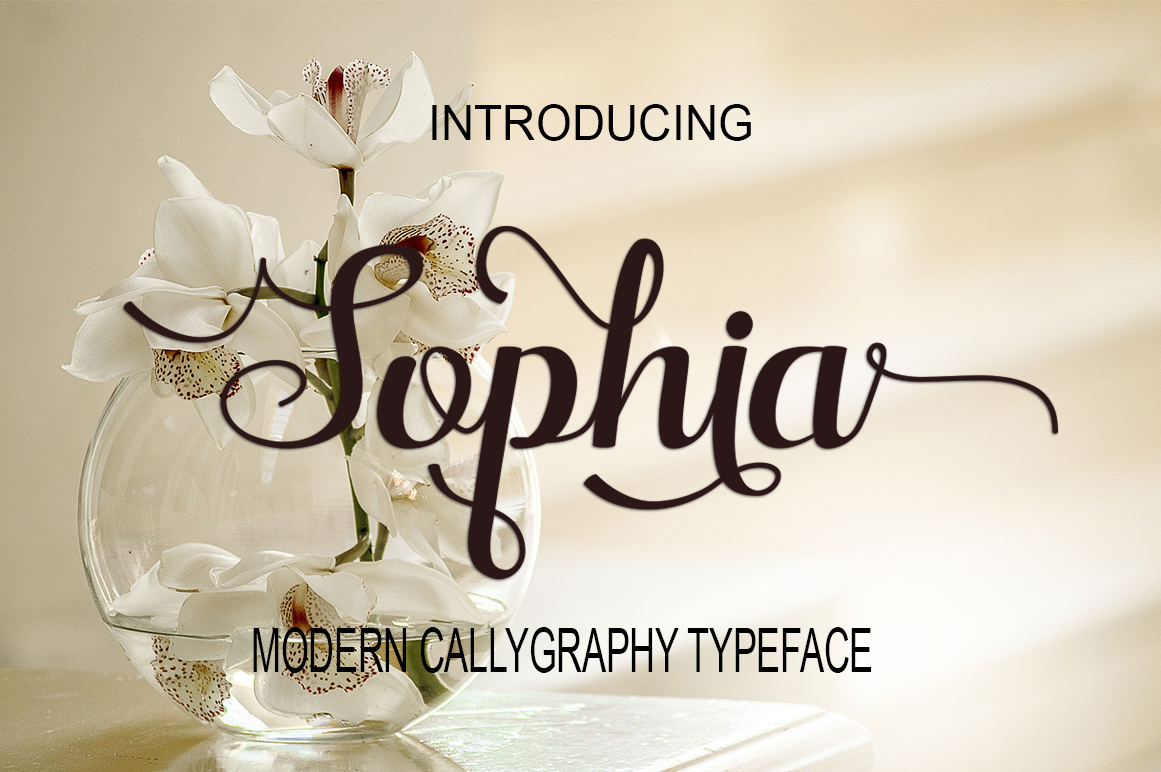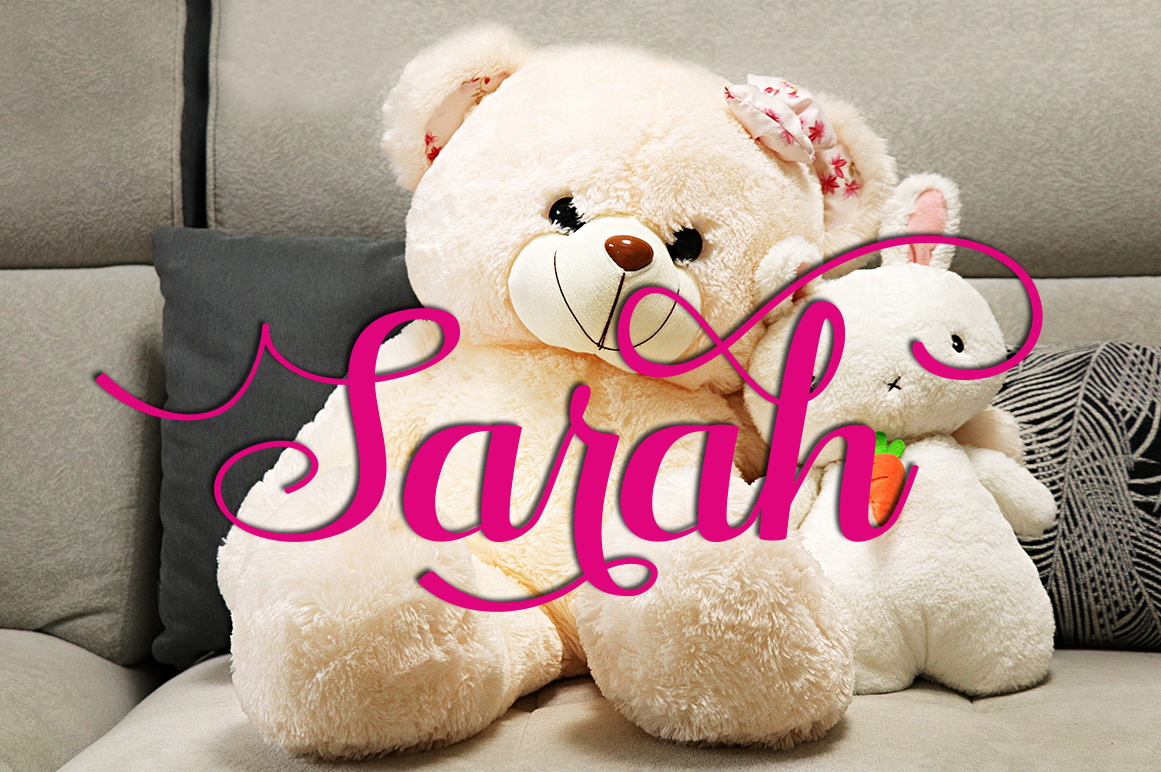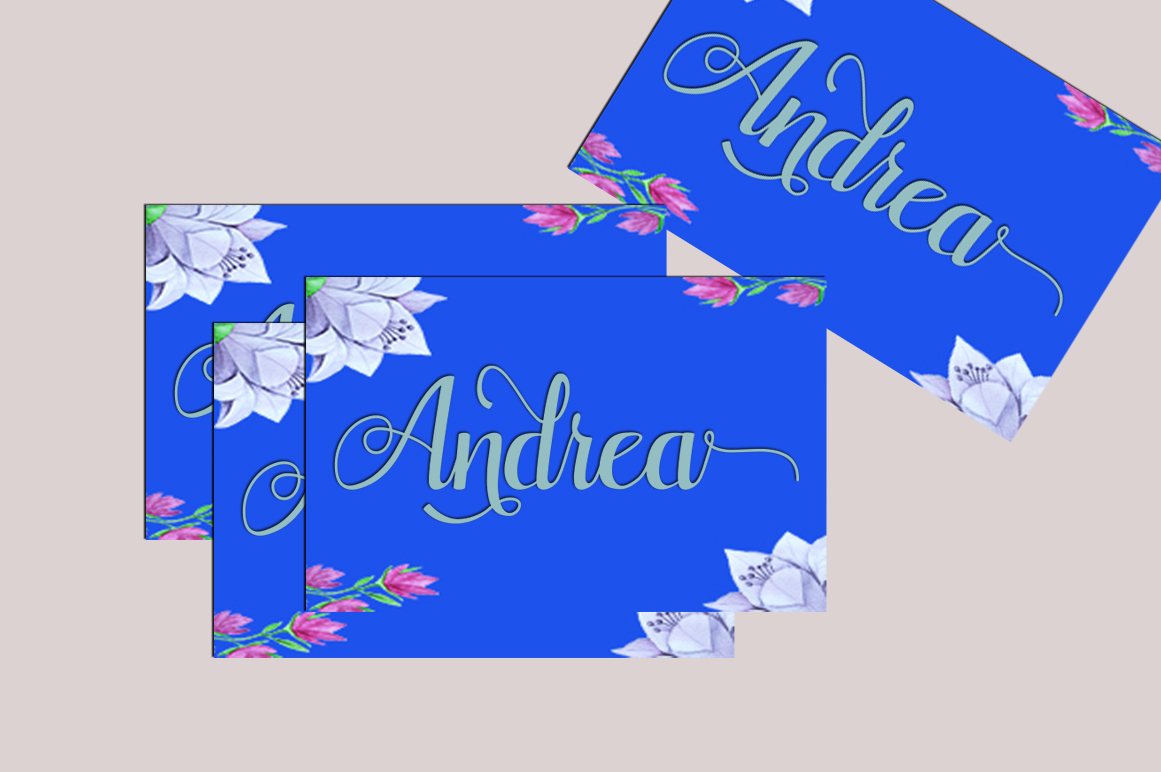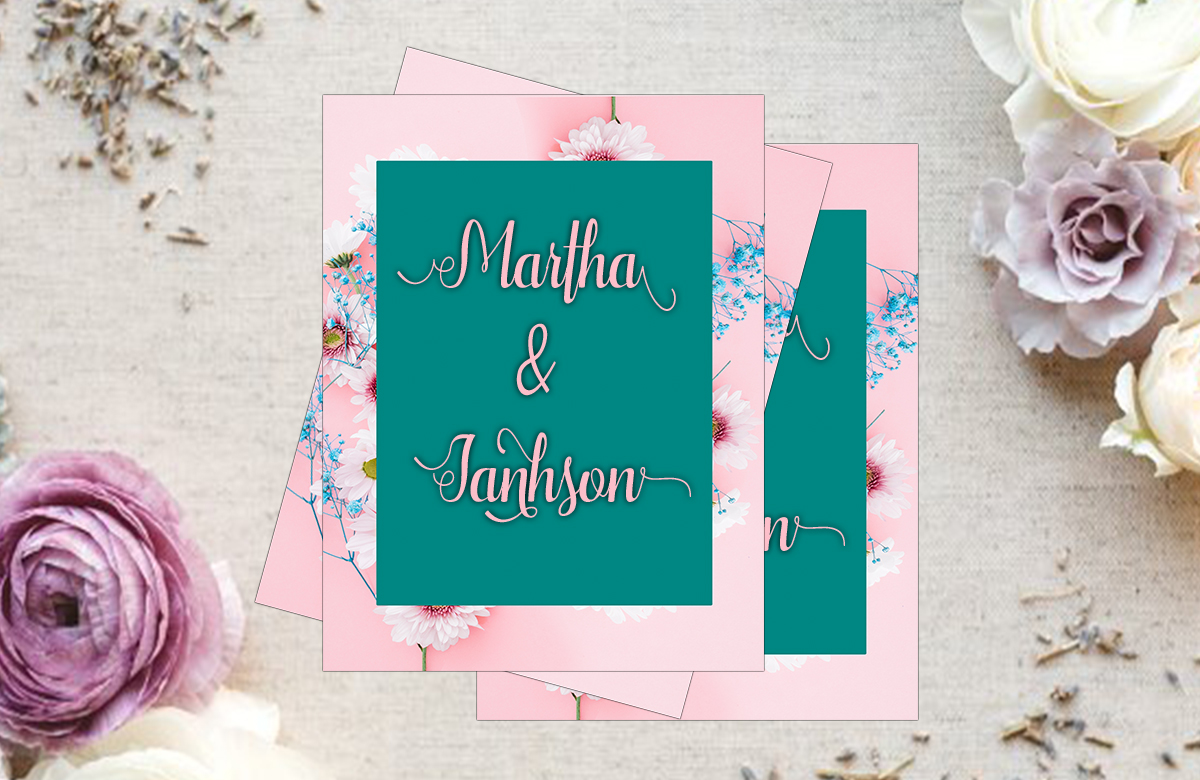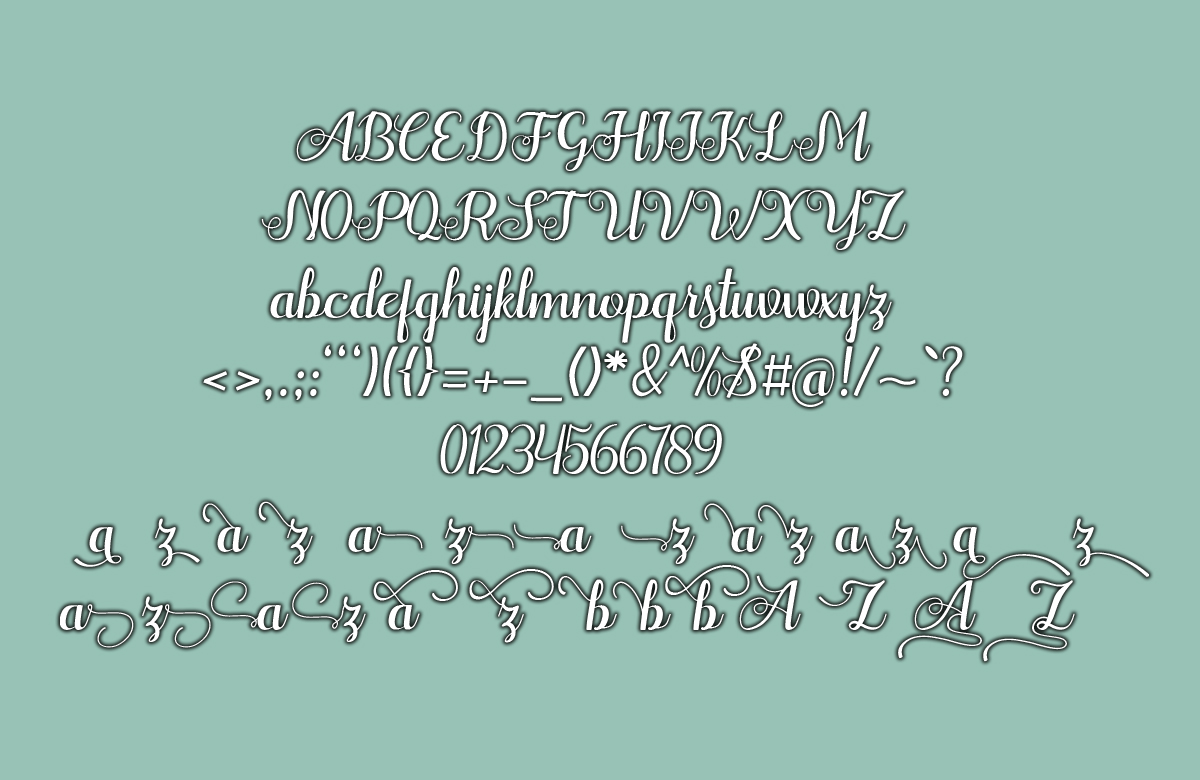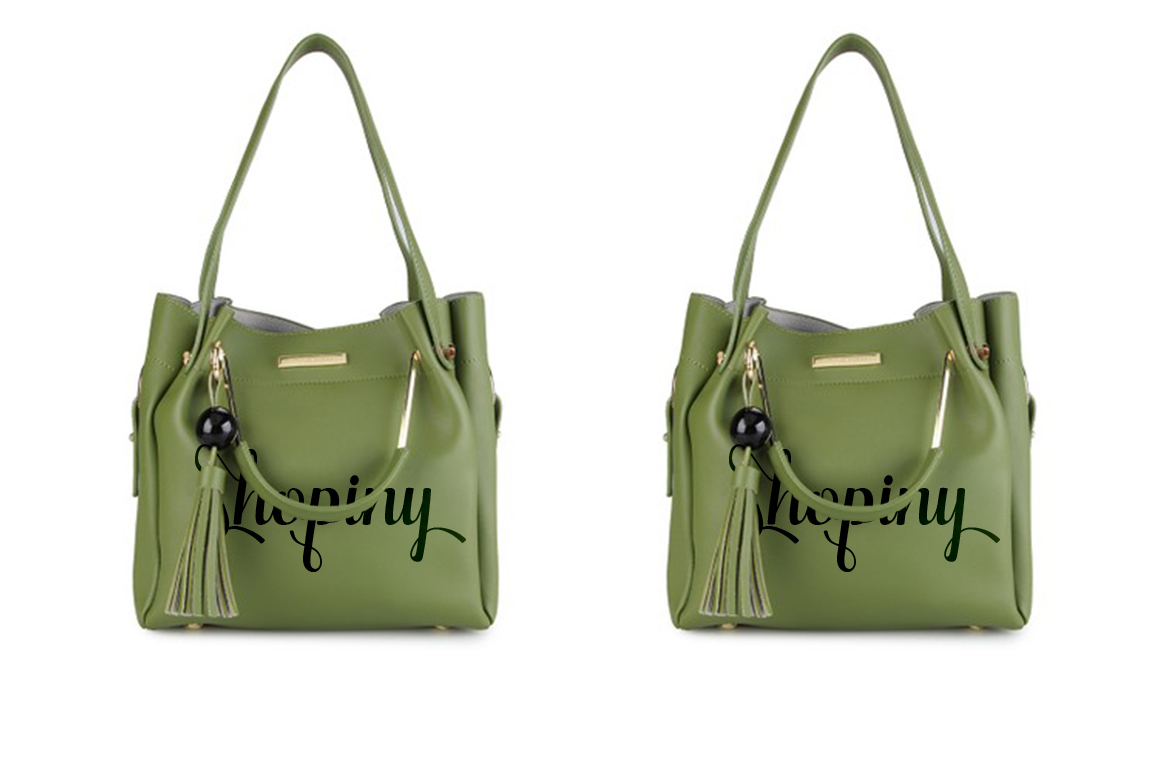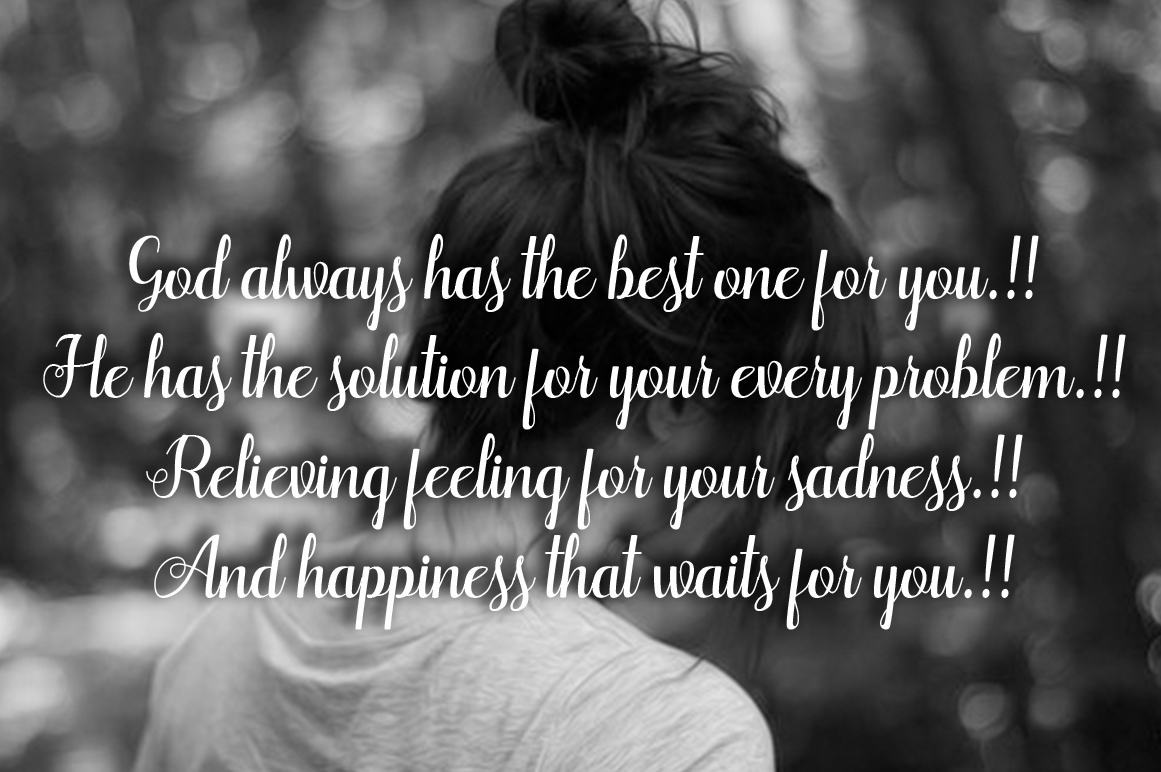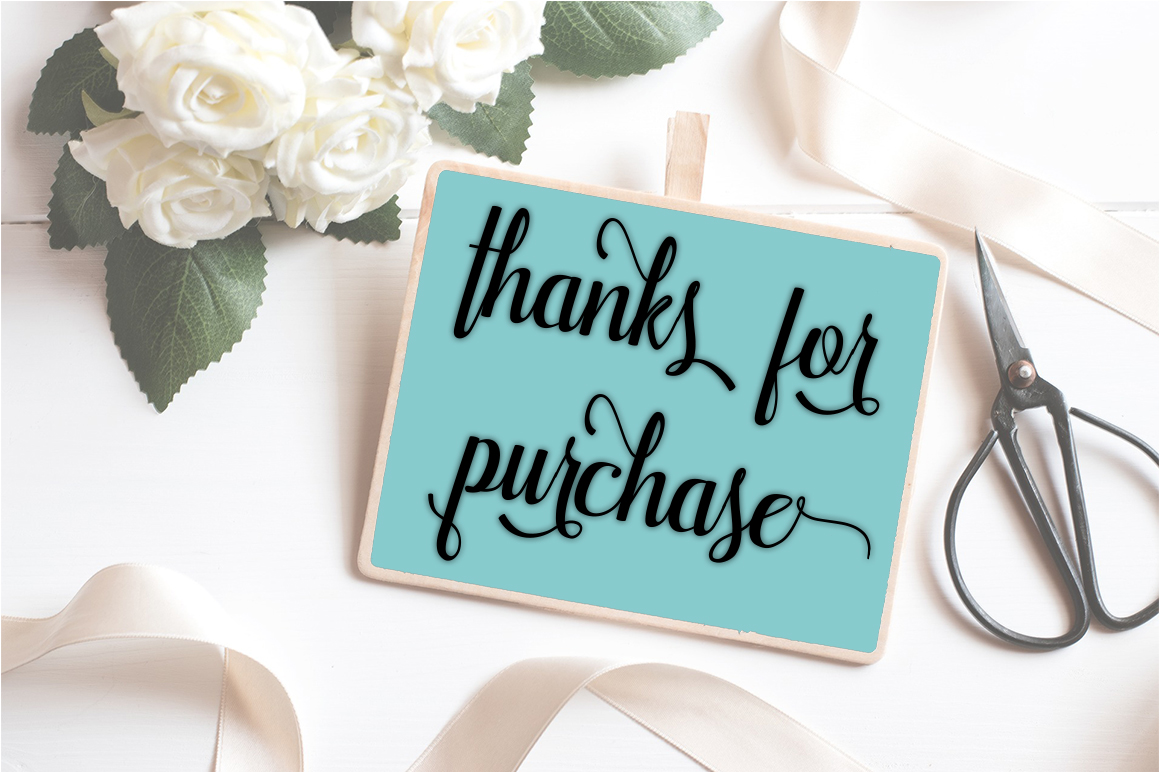
Sophia Font
About Sophia Font
Sophia is a modern calligraphy font that features strong, decorative letters.
It’s packed with alternates and extra characters, making it a go-to font for many different styles of projects.